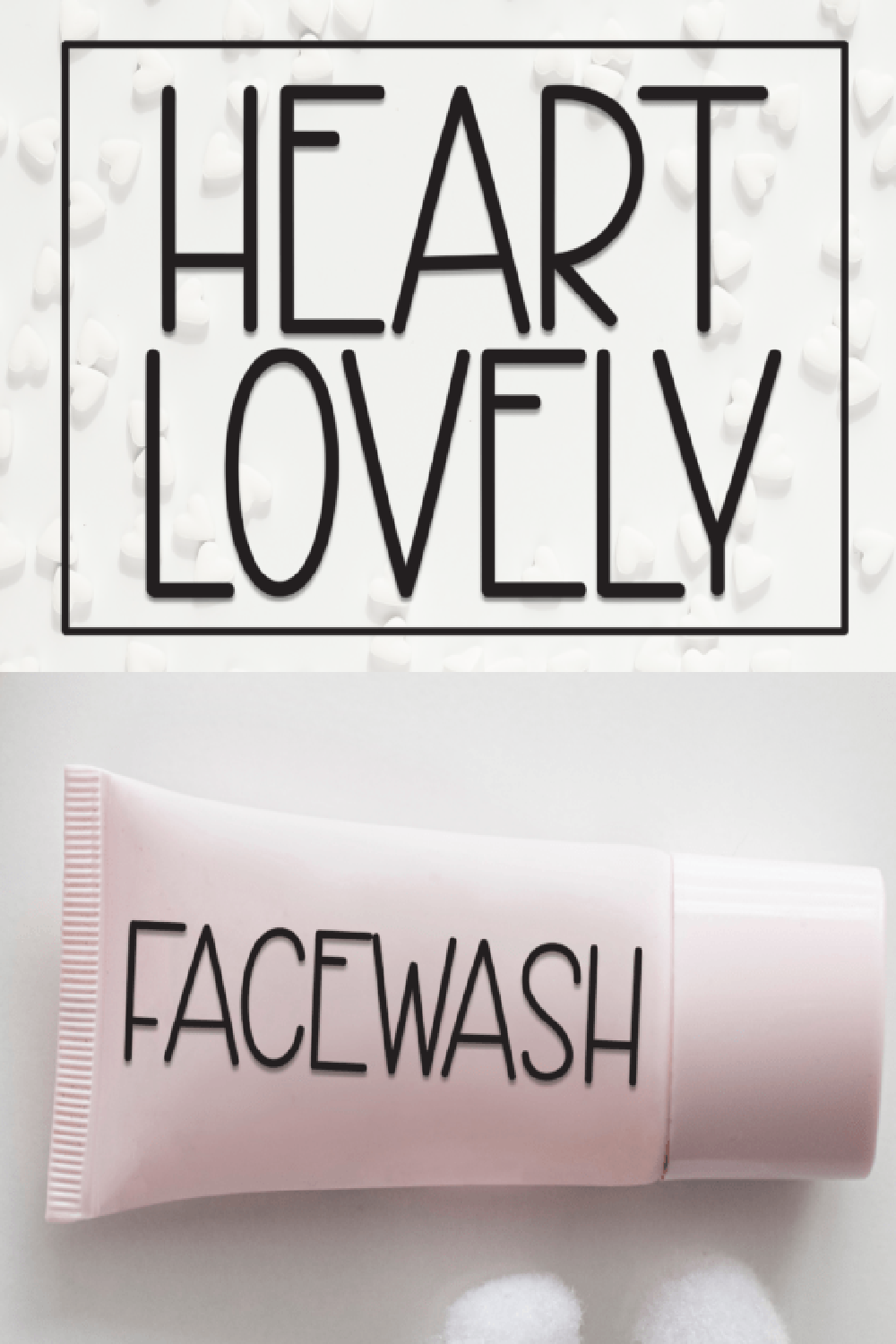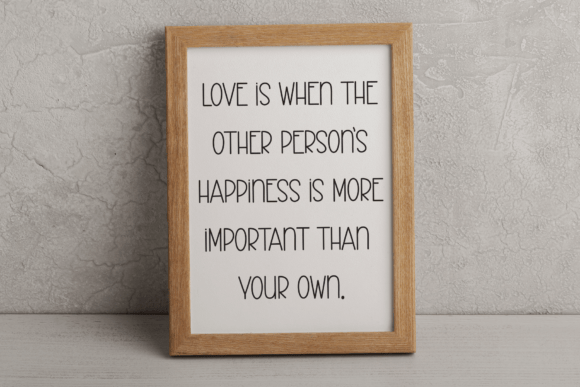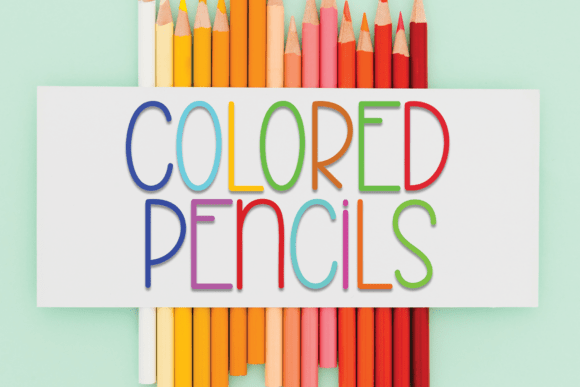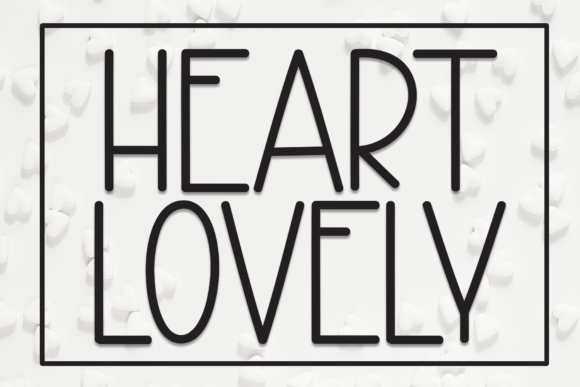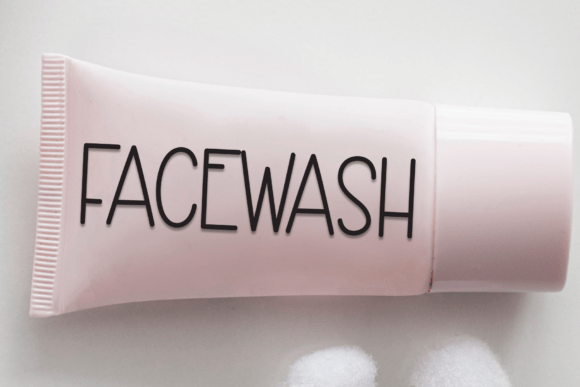
Heart Lovely Font
About the Heart Lovely Font
Crafted with precision, the Heart Lovely Font is ready to bring your ideas to life. Introducing a delightful handwritten display font, brimming with warmth and friendliness. The charming nuances of this font make it perfect for sprucing up wedding invites, greeting cards or any design craving a touch of whimsy and laid-back elegance. Its captivating allure lies in its ability to balance a lighthearted, cute aura with a refined simplicity, offering a breath of fresh, fun typography to your creative repertoire. Experience the magic this unique font can bring to your designs; a hint of joy in every stroke!